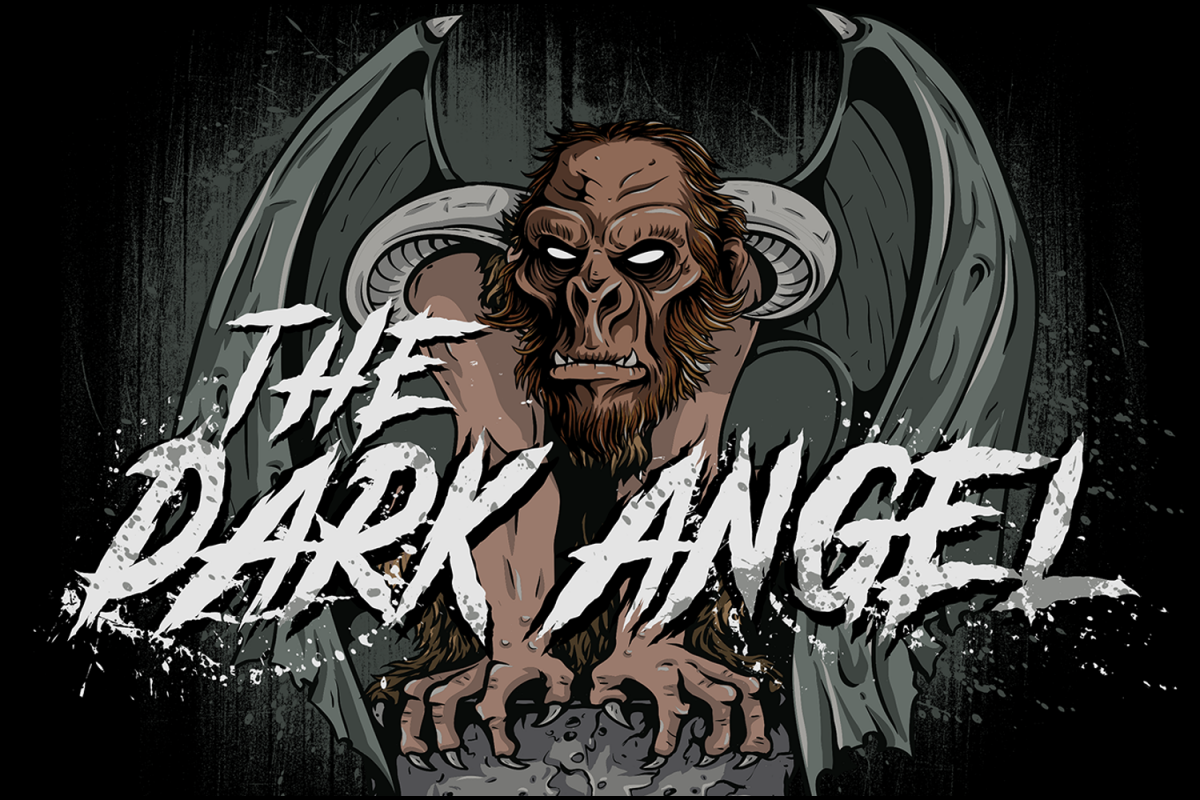
Grind and Death Typeface
GRIND AND DEATH
Original typeface
Dark halloween lifestyle font
Hardcore horror graffiti style
Available in uppercase
Available in lowercase